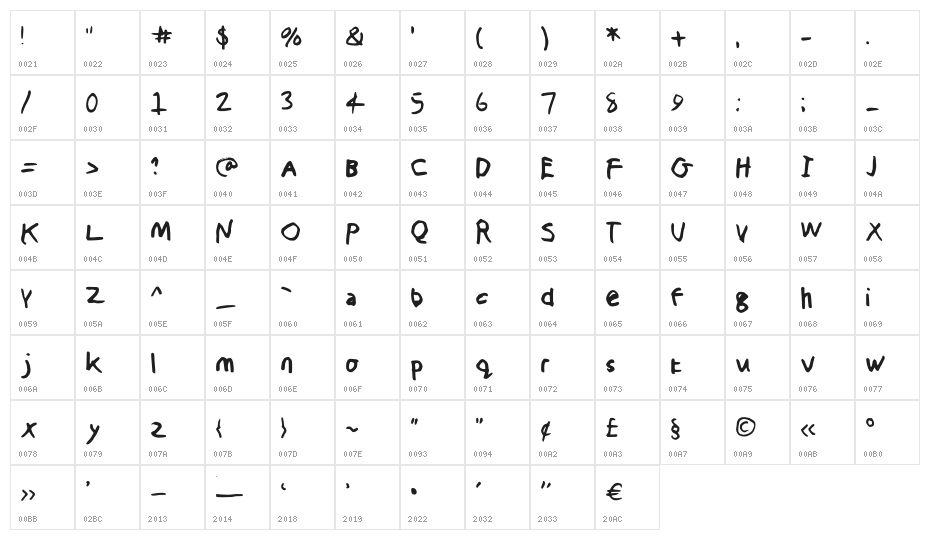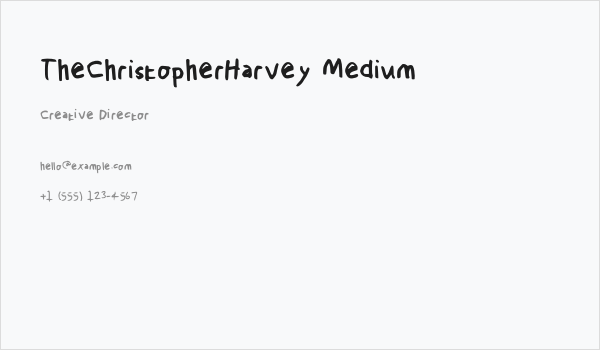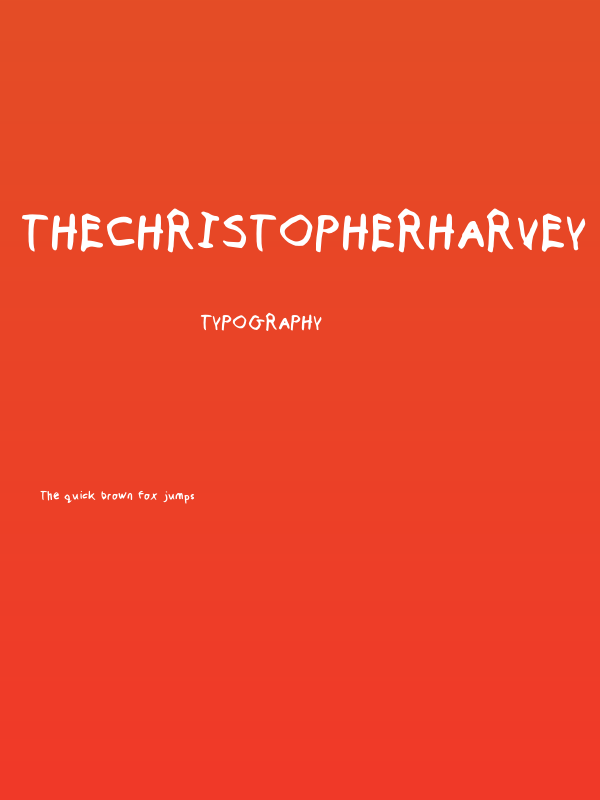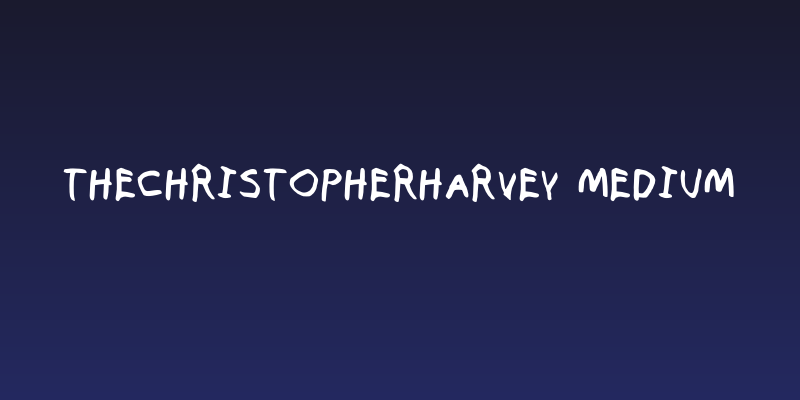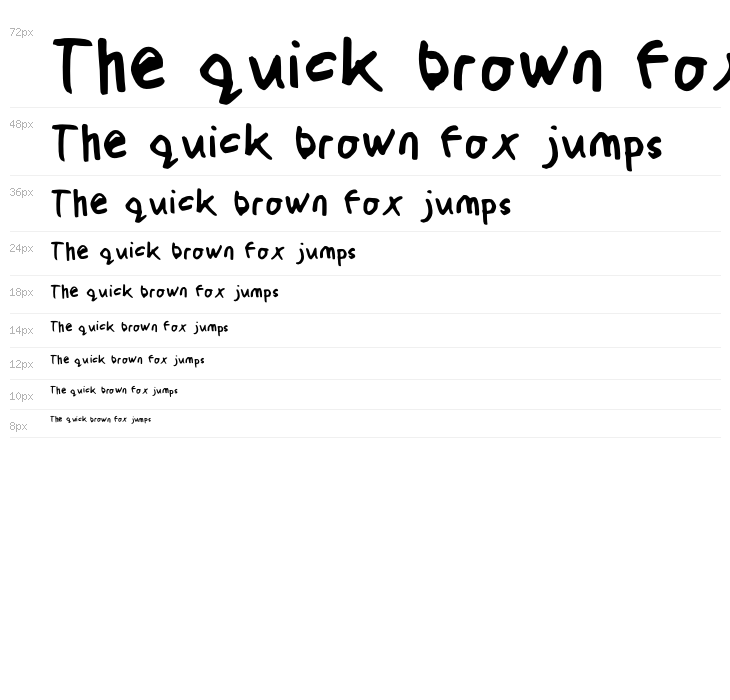
TheChristopherHarvey Medium Font
TheChristopherHarvey Medium Description
This font features a playful and informal handwritten style, characterized by its irregular and organic letterforms. The strokes are bold and slightly uneven, giving it a casual and approachable feel. Each character has a unique personality, with varying heights and widths that add to its charm. The font maintains a consistent thickness throughout, with rounded edges that soften its appearance. It includes a full set of uppercase and lowercase letters, numbers, and a variety of special characters, making it versatile for different uses.